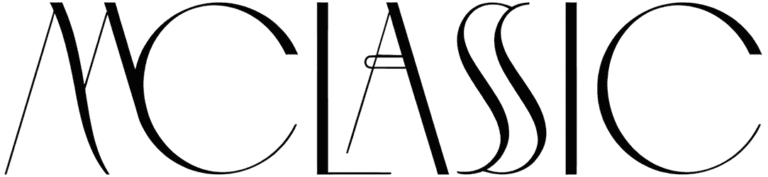
Relasi Smoothish Font
If you don’t have much time to find a specific font and want to implement your project in the simplest possible way, Relasi Smoothish can be your tool.
This sans serif font, which also has traces of handwritten letters, is suitable for tasks that need a classic touch with a little twist. This font, without the number 3, is perfect for adding a special touch to logos and headlines and can give readers a reason to look twice at the design.